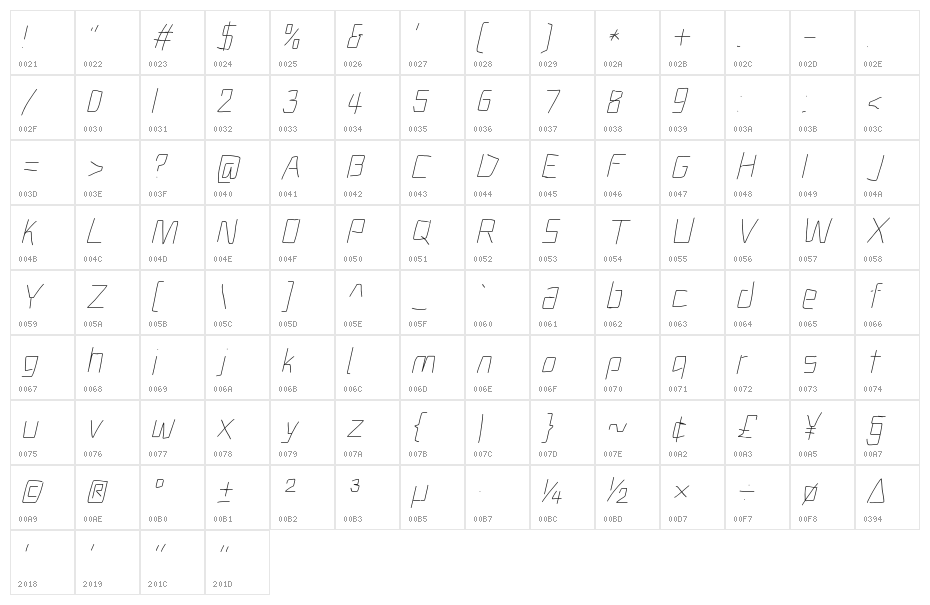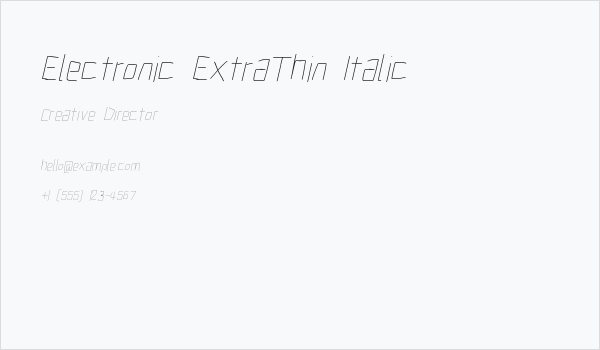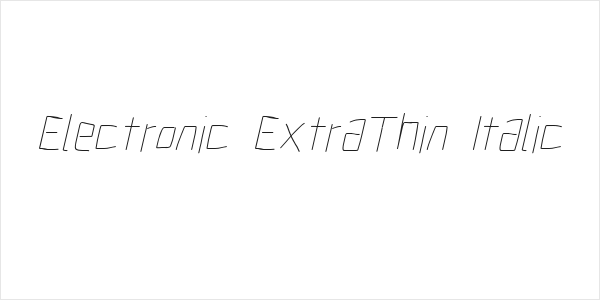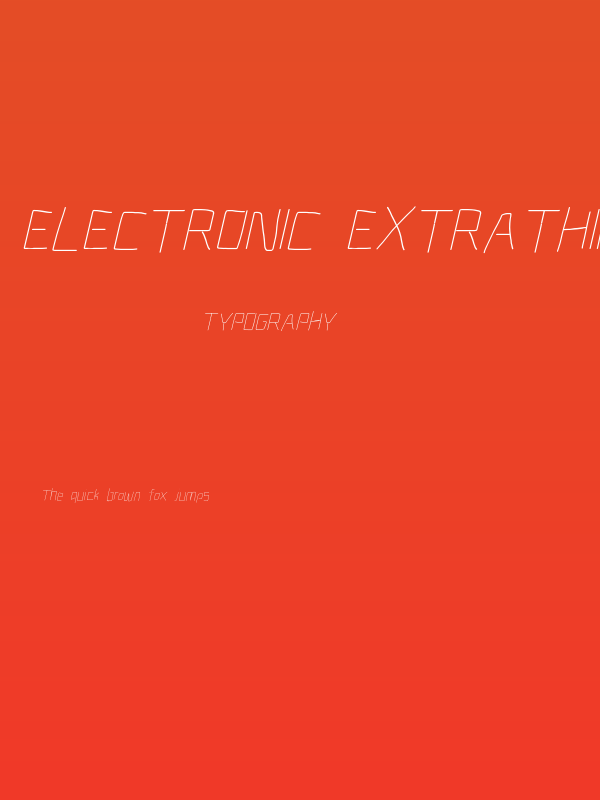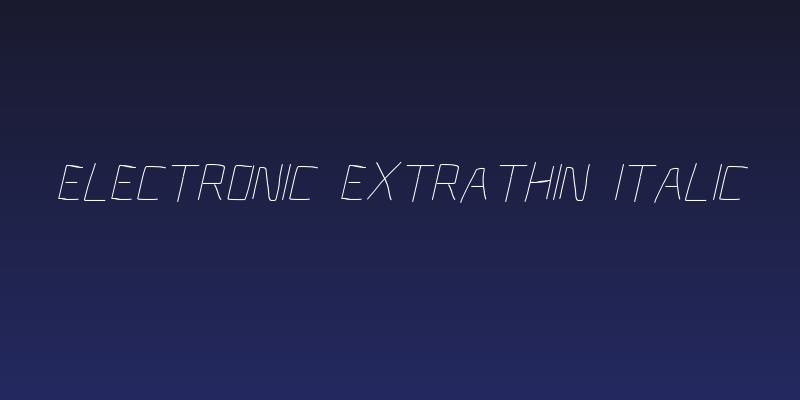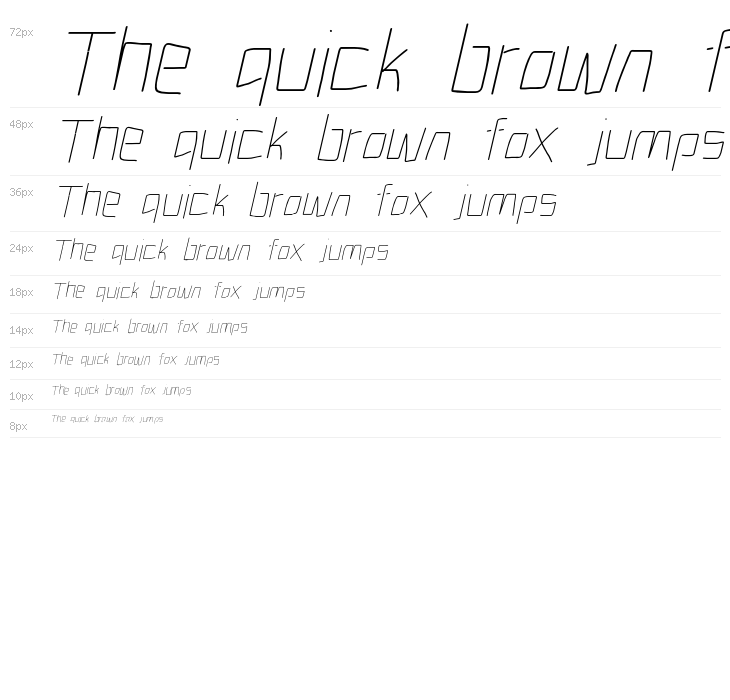
Electronic ExtraThin Italic Font
Electronic ExtraThin Italic Description
This font features a sleek, futuristic design with a distinctly angular and geometric structure. The characters are crafted with an extra-thin weight, giving them a delicate and airy appearance. The italic slant adds a dynamic and forward-moving feel, enhancing its modern aesthetic. Each letter is composed of straight lines and sharp angles, creating a sense of precision and technology. The font maintains a consistent stroke width throughout, contributing to its clean and uncluttered look. Its unique style makes it stand out, ideal for projects that require a contemporary and innovative touch.
| Use Case | Logos, Headlines, Digital interfaces |
| Proposed Projects | Ideal for tech branding, modern posters, digital interfaces, and sci-fi themed designs. |